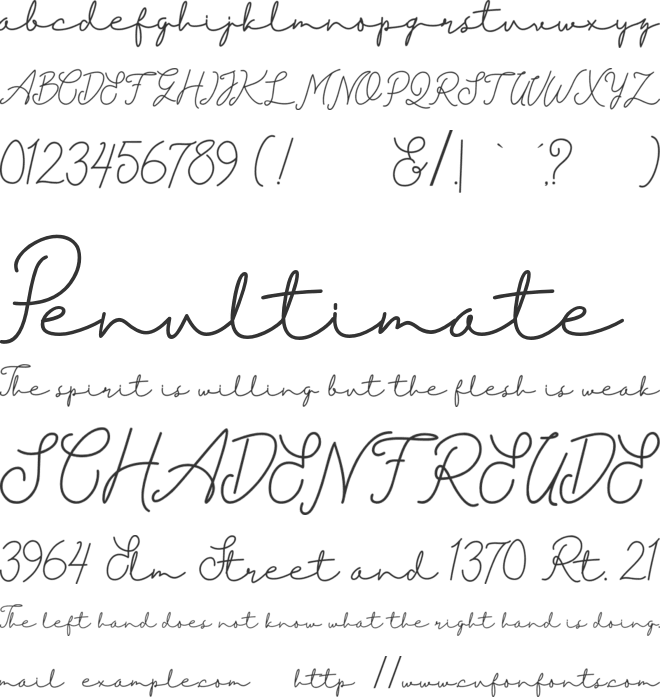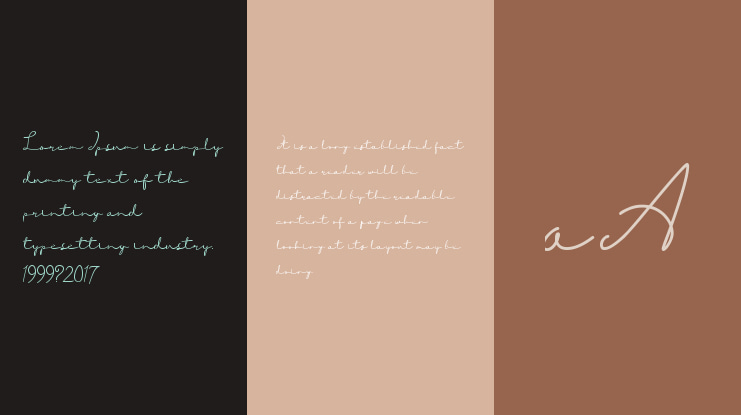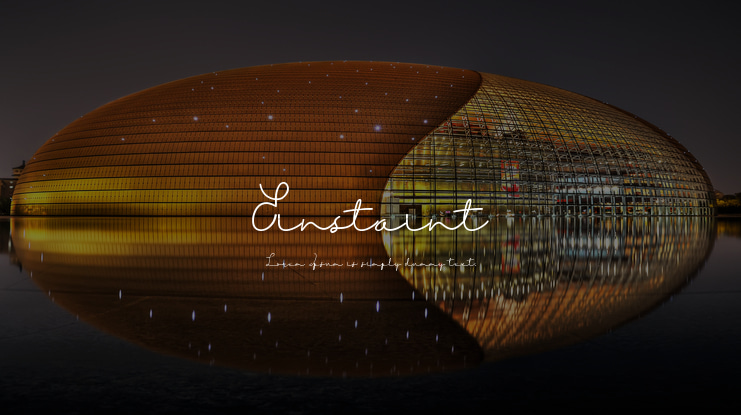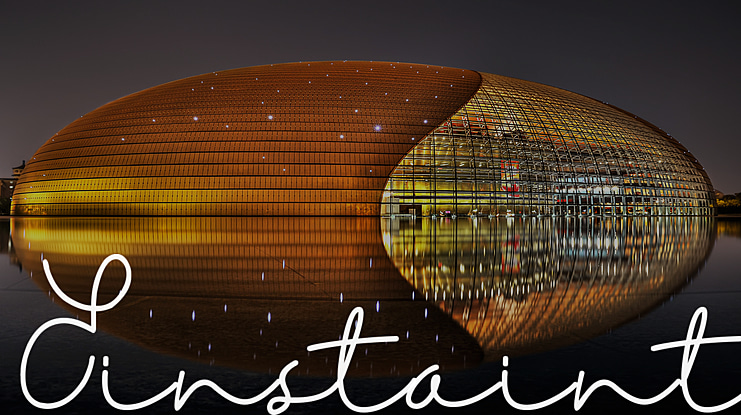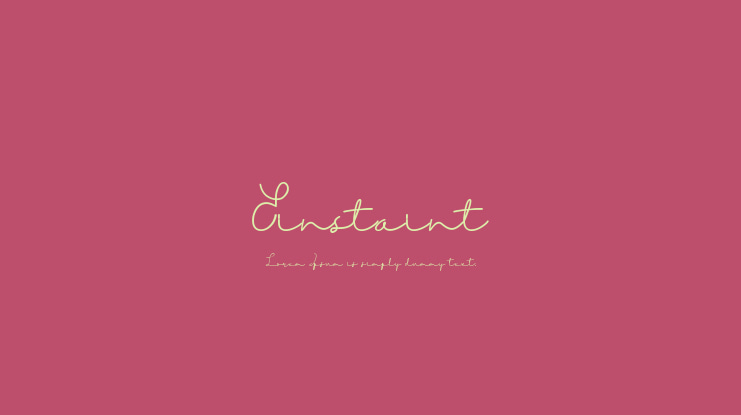
Einstaint Font
Eintaint Demo Version font is a handwritten signature script with a natural & stylish flow. Eintaint font of scripts is perfect for personal branding. Eintaint is perfect for branding projects, logo, wedding designs, social media posts, advertisements, product packaging, product designs, label, photography, watermark, invitation, and stationery.